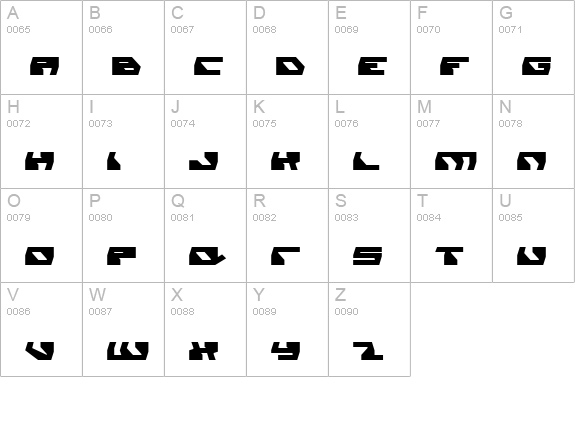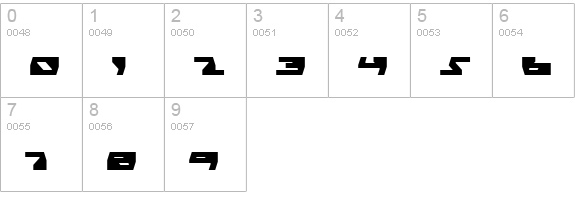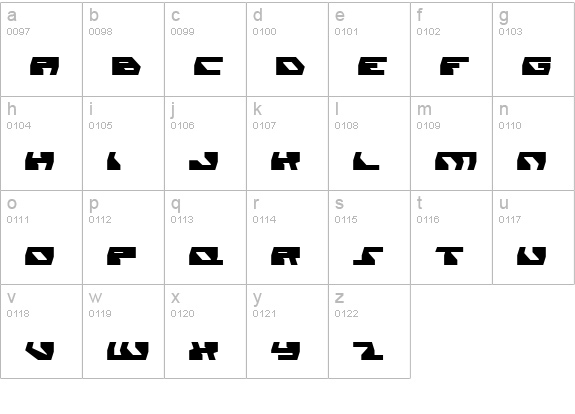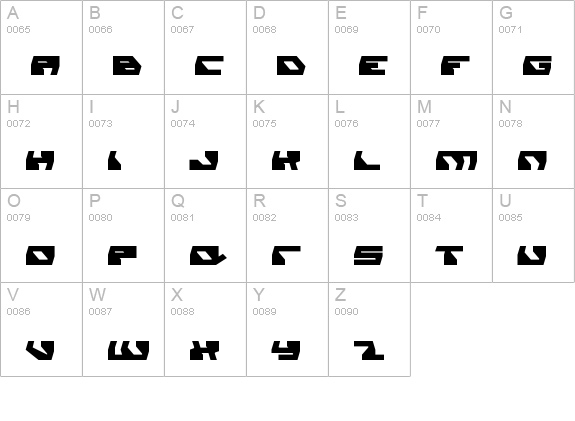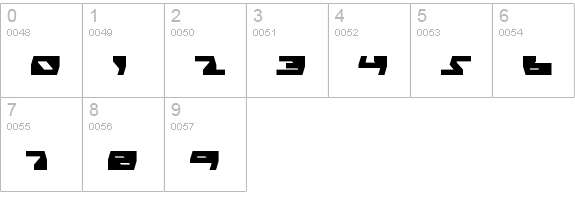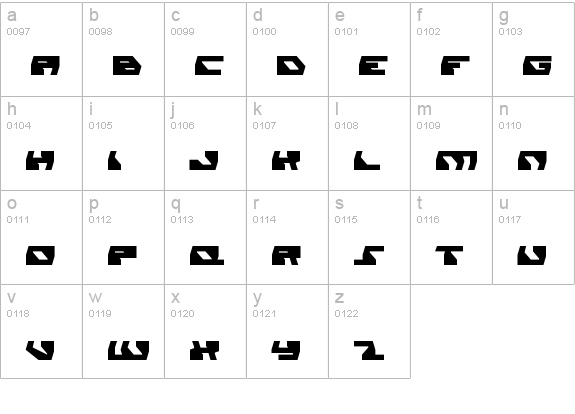
Daedalus Font Details
Daedalus font is a stunning and versatile typeface that exudes elegance and sophistication. With its sleek lines and timeless appeal, this font is perfect for a wide range of design projects, from branding to editorial layouts. The Daedalus font is meticulously crafted to offer a perfect balance between classic and modern aesthetics, making it a go-to choice for designers seeking a touch of refinement in their work. The best part? Daedalus font is available for free download at FontsMarket.com, making it accessible to all designers looking to elevate their projects with a touch of style and sophistication. Whether you're creating a logo, poster, or website design, the Daedalus font is sure to add a touch of class and elegance to your work. Download this exquisite font today and unlock a world of design possibilities at your fingertips.